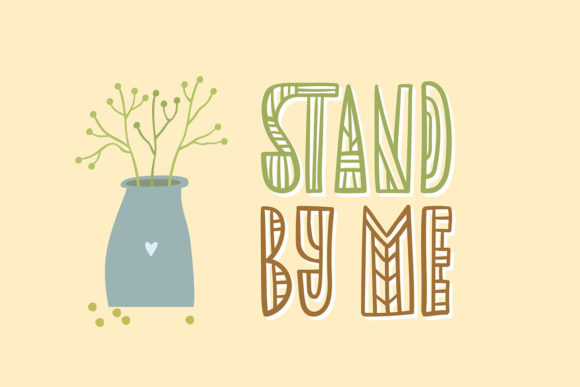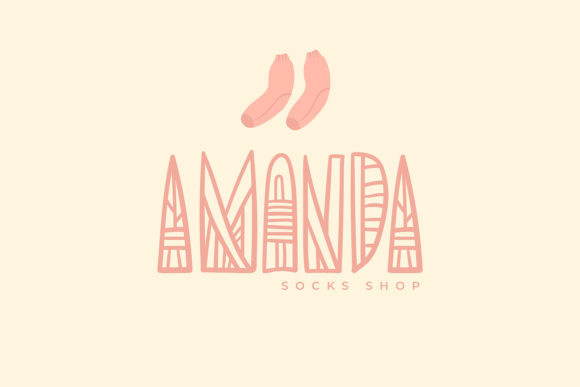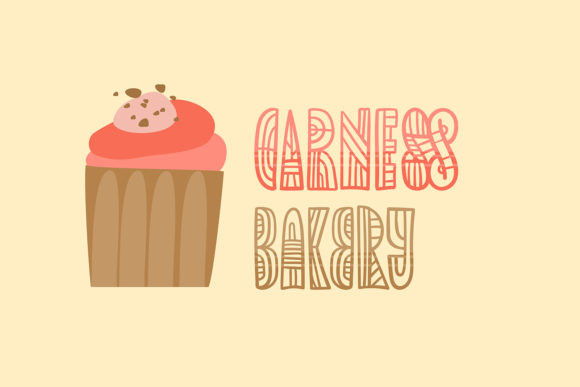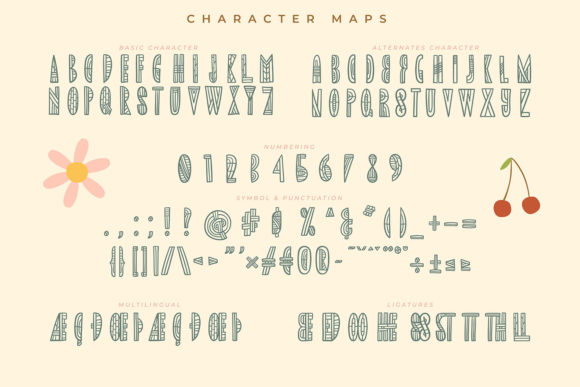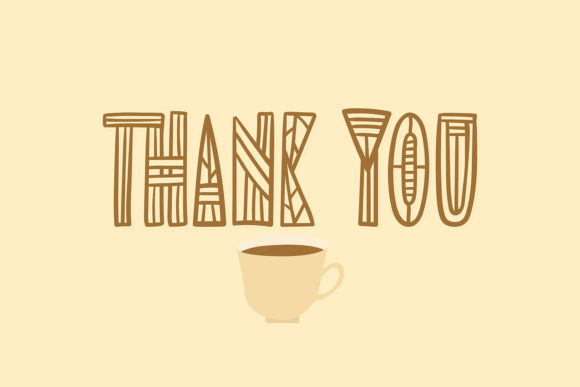
Introduction to Rhefilla Font Font
Fonts play a crucial role in design, and the Rhefilla Font font is a typeface that brings both character and versatility to any project. Whether you’re working on a branding project, a website, or a print design, the Rhefilla Font font offers a unique style that can elevate your work.
Rhefilla is a decorative typeface with an incredible look.
Take your crafting projects to the next level with this unique font It is perfect for greeting cards, branding materials, business cards, quotes, posters, and more.
Key Features of Rhefilla Font Font
Why Choose Rhefilla Font Font?
The Rhefilla Font font is more than just a typeface – it’s a design tool that helps you communicate your message with style and clarity. Its unique character set and versatile design make it suitable for a wide range of applications, from elegant invitations to bold headlines.
With its carefully crafted letterforms and balanced proportions, the Rhefilla Font font ensures readability and visual appeal across all mediums.
What makes Rhefilla Font font special?
The Rhefilla Font font stands out with its unique design, exceptional readability, and versatility across various design applications.